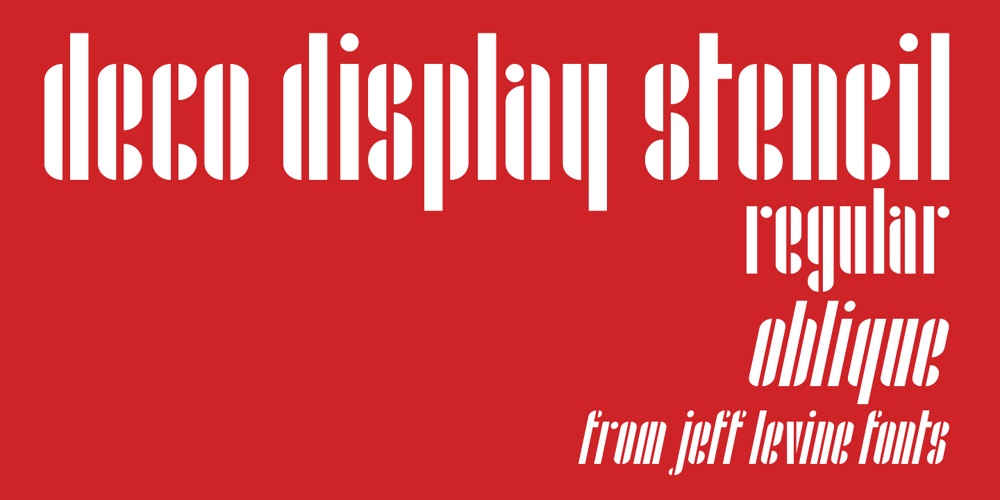
Deco Display Stencil JNL
Deco Display Stencil JNL font
Deco Display Stencil JNL Font Family was designed by Jeff Levine and published by Jeff Levine. Deco Display Stencil JNL contains 2 styles and family package options. Titles hand lettered for articles appearing in the November, 1938 issue of Hollywood Magazine were done in a condensed Art Deco stencil style in just lower case. This novelty type design is now available as Deco Display Stencil JNL in both regular and oblique versions.